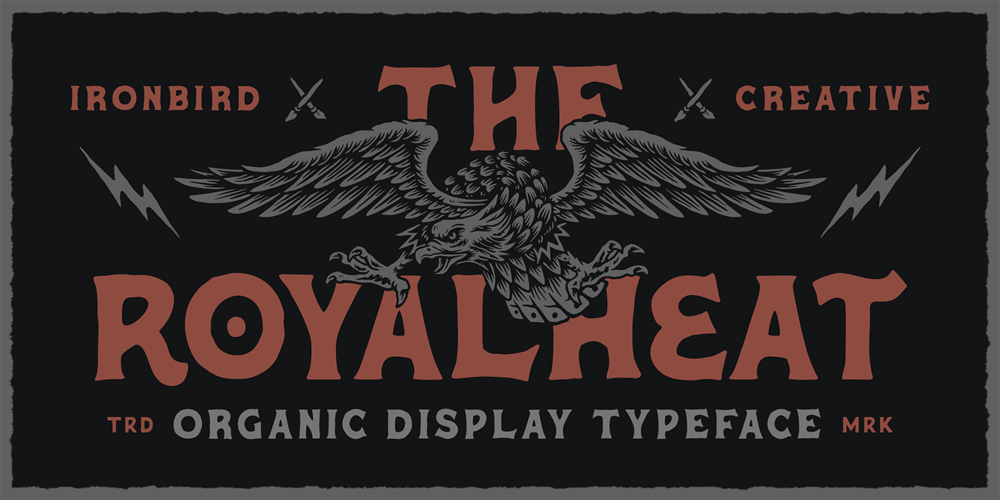
The Royalheat
The Royalheat font
The Royalheat Font Family was designed by Septianto Nugroho and published by Ironbird Creative. The Royalheat contains 4 styles and family package options. The Royalheat is a organic display typeface inspired by vintage type with handdrawn feel. Comes with regular, stamp, slanted and slanted stamp styles. This typefaces is perfect for people looking for vintage aesthetic. Suitable for any graphic designs such as branding materials, t-shirt, print, logo, poster, t-shirt, quotes .etcWe hope you enjoy the font, please feel free to comment if you have any thoughts or feedback. Thanks for purchasing and have fun!Regards,Ironbird Creative